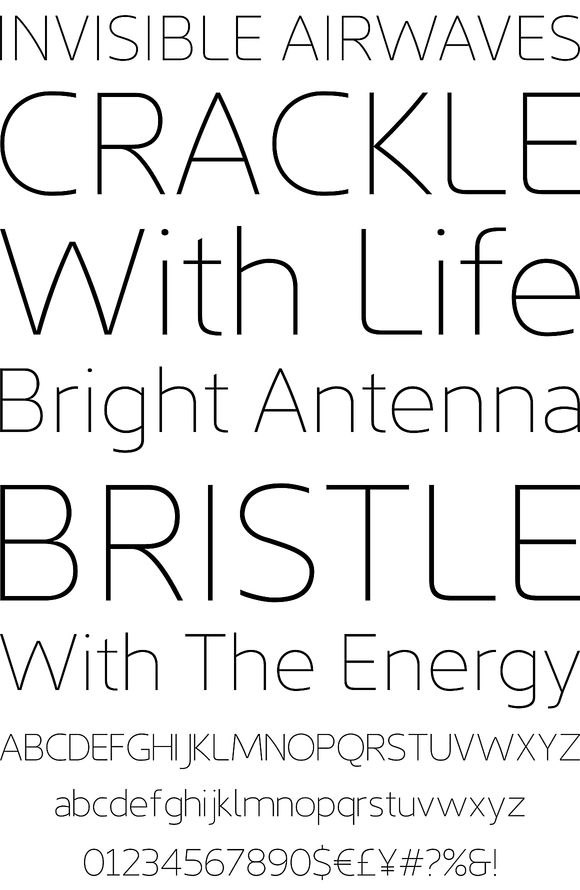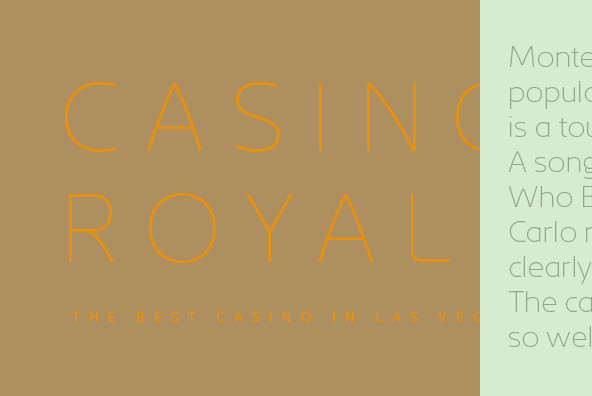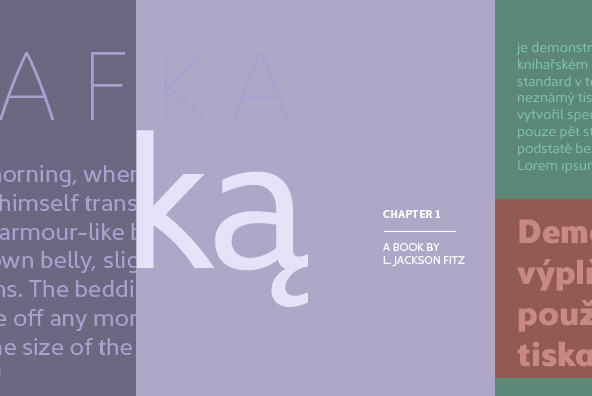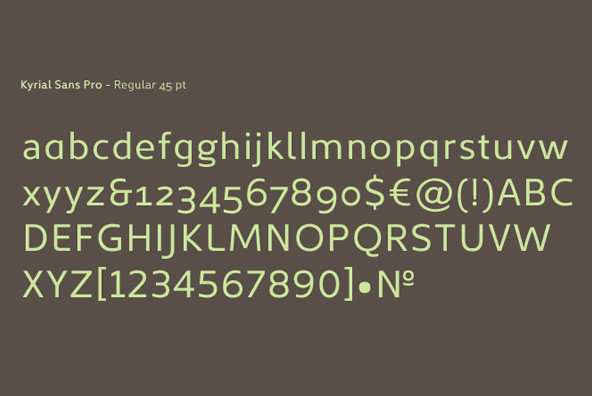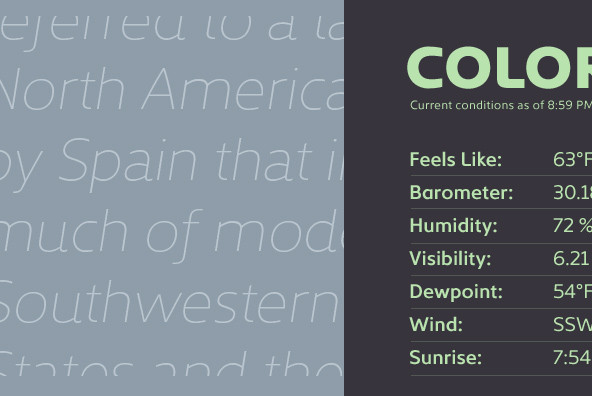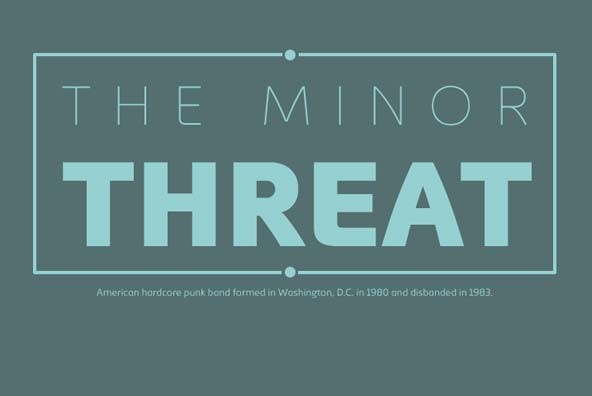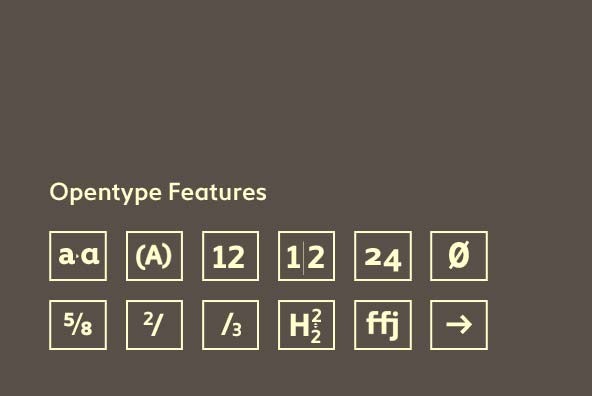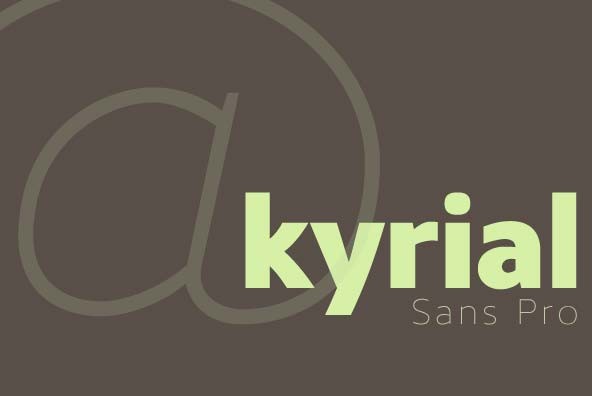
Kyrial Sans Pro
Designed in 2011 by Olivier Gourvat, this font family has generous proportions with a range of weights make it a versatile family for print and web design work.
Designed in 2011 by Olivier Gourvat, this font family has generous proportions with a range of weights make it a versatile family for print and web design work. Kyrial Display Pro is also a pratical typographic choice to express strength, elegance, and conceptual clarity. Kyrial offers lots of OpenType goodness and broad language support.